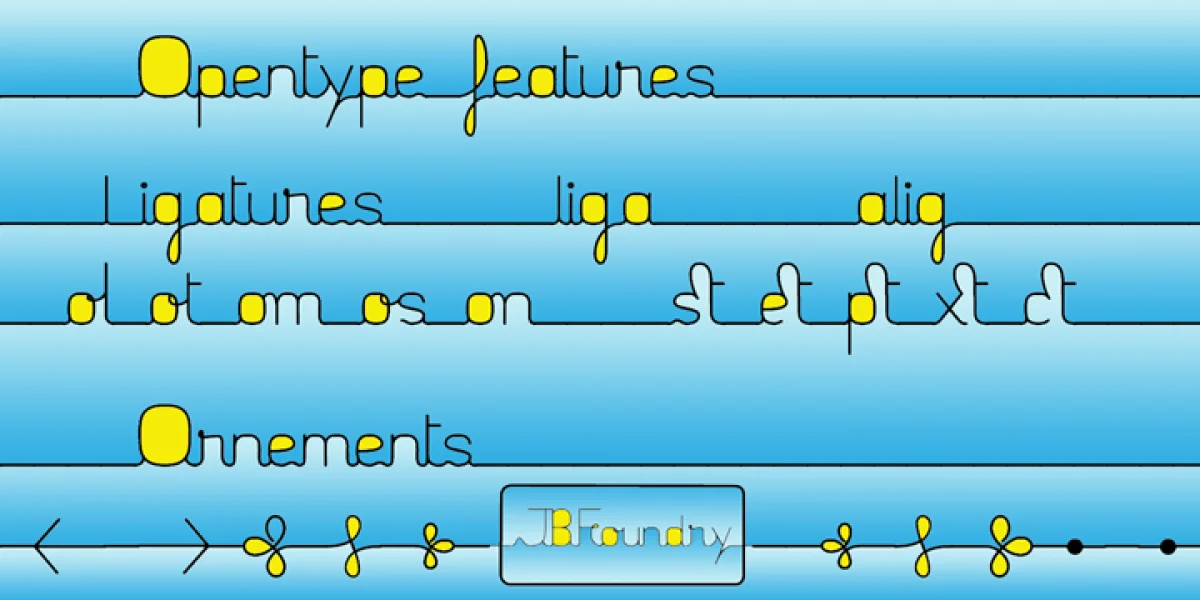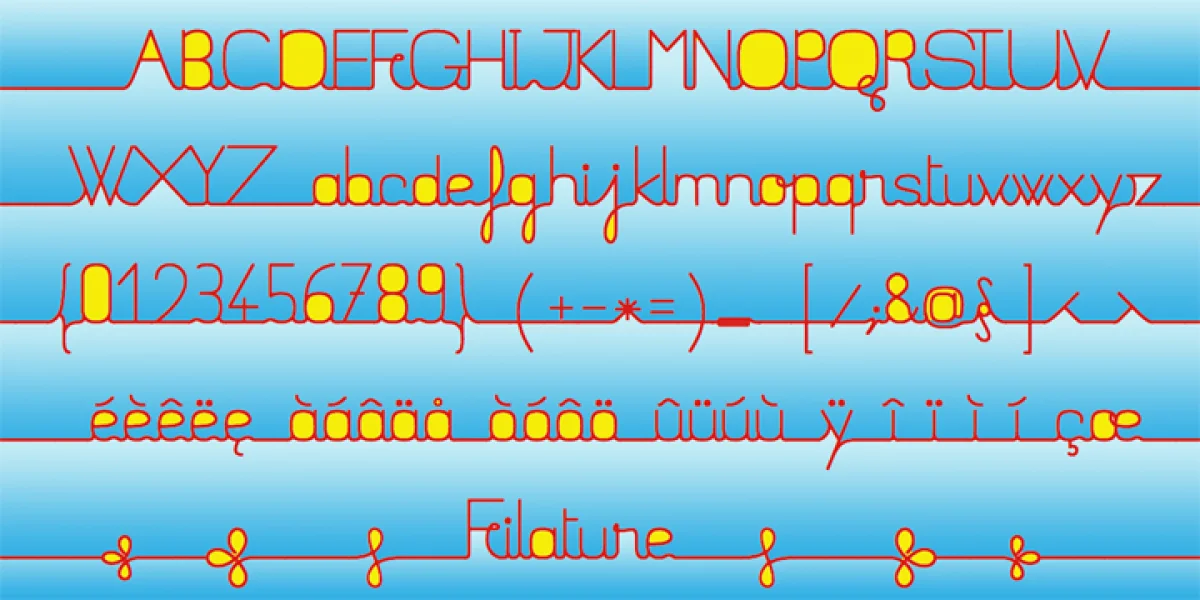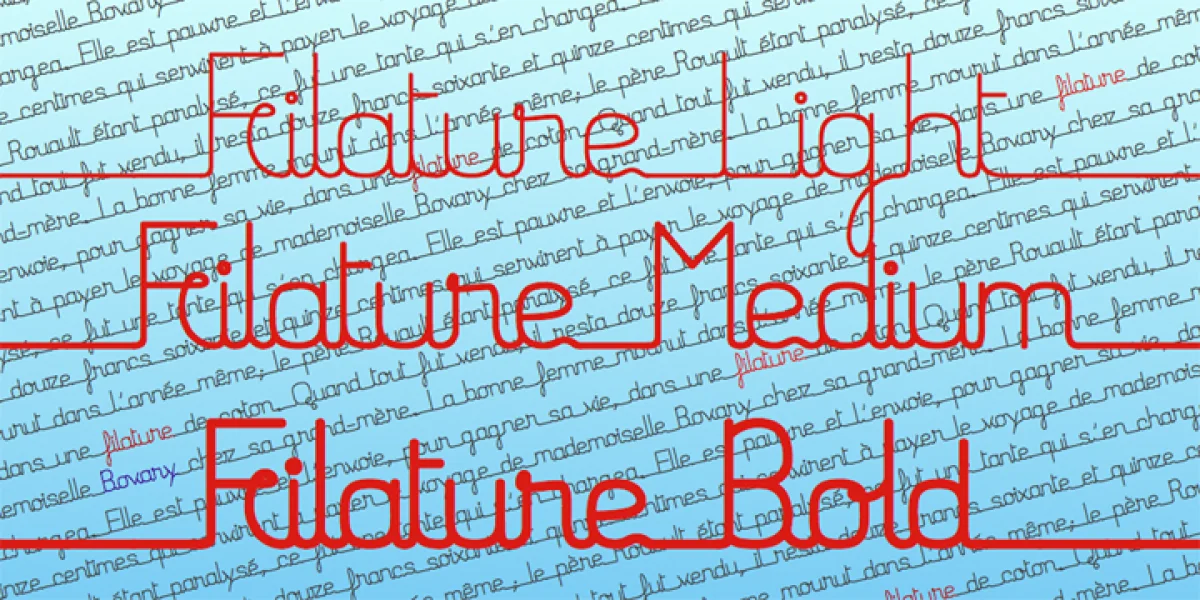
Filature is a fully connected typeface with open type features. Use Filature any time you want fancy, legible, and original text. This font is free for personal use only. To purchase the full font (with OpenType properties) or a commercial license, visit MyFonts.